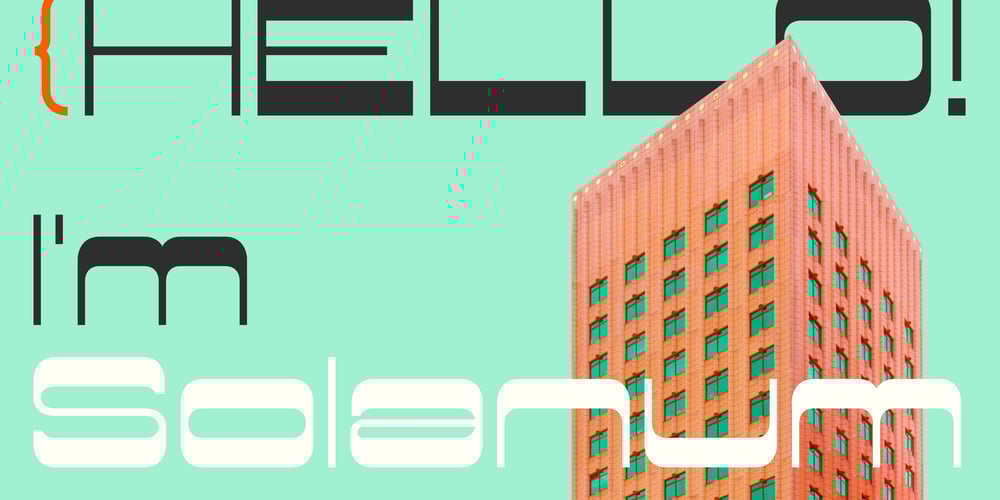
Solanum Font Family was designed by Malgorzata Bartosik and published by Malgorzata Bartosik. Solanum contains 12 styles and family package options. Solanum is cosmic style sans family. It contains Latin and Cyrillic alphabet, Latin with Western, Central and South Eastern European, Vietnamese and Pinyin diacritics. Solanum is perfect for display purposes. This typeface family contains 12 styles from Thin to Regular and from Normal to Ultra Expanded.